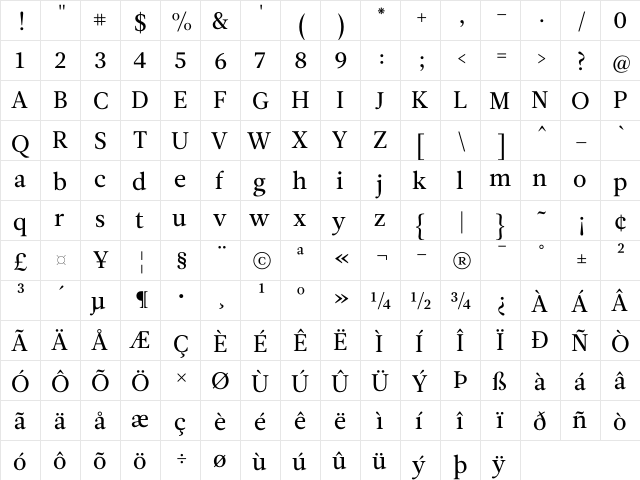
Leitura News Roman 2
| Foundry | Dino dos Santos _DSType |
| Designer | Dino dos Santos |
Design Context for Leitura News Typeface
Leitura News takes a measured approach to typography — its balanced proportions and neutral character make it a reliable workhorse for both digital and print work.